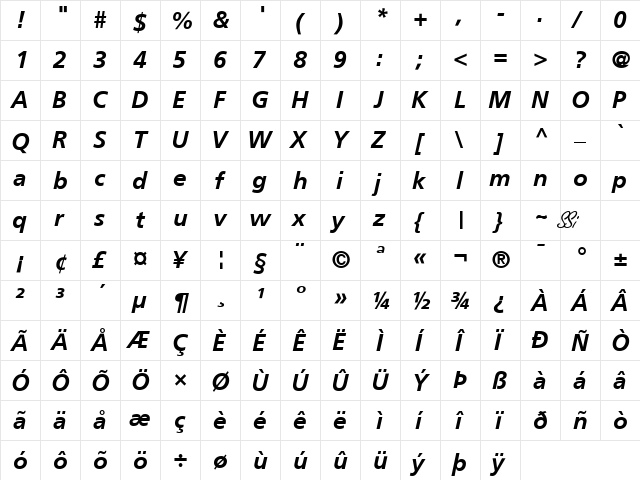
Palma SSi Bold Italic
Design Context for Palma SSi Typeface
Palma SSi is a composed and adaptable typeface that performs quietly and consistently across a wide range of design contexts. The slanted form adds forward momentum and visual energy. The heavy weight commands attention and anchors typographic hierarchies.